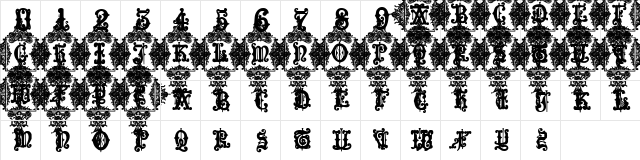
Medieval Sorcerer Ornamental Font Preview
Design Context for Medieval Sorcerer Ornamental Typeface
Medieval Sorcerer Ornamental is built around its visual character rather than neutral utility — its distinctive forms are designed to make an impression at display sizes.
Font Pairing: Pair with a clean neutral sans-serif for body copy to let Medieval Sorcerer Ornamental's character lead without overwhelming the composition.
Pro Tip: Treat Medieval Sorcerer Ornamental as the centrepiece of your typographic hierarchy. One strong heading set in a decorative face can carry an entire layout.